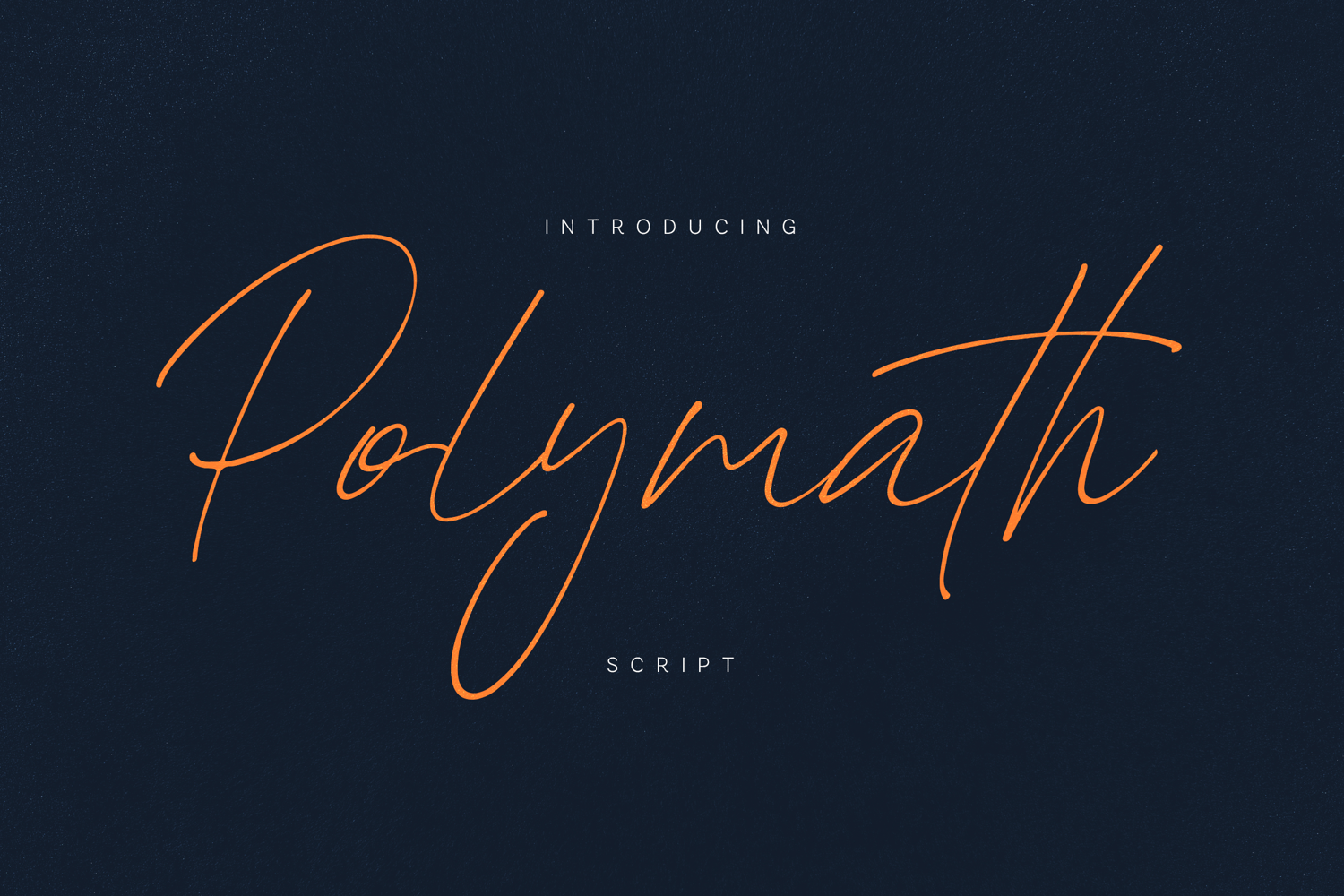
Polymath Signature Script Font
Polymath is a modern signature script font designed to capture the beauty of authentic handwriting with a refined, effortless flow. Created with natural pen movements and elegant line variation, this handwritten typeface delivers a sophisticated, stylish, and contemporary aesthetic perfect for premium branding and creative design projects.
Featuring graceful letterforms, long flowing strokes, and realistic handwritten details, Polymath brings warmth, personality, and elegance to every composition. Its natural rhythm creates typography that feels genuine and expressive while remaining highly versatile across a wide range of applications.
Whether you're creating luxury logos, wedding invitations, social media graphics, beauty branding, photography watermarks, product packaging, business cards, magazine layouts, book covers, or boutique branding, Polymath adds a polished handwritten touch that stands out beautifully.
The font includes multilingual support, carefully crafted uppercase and lowercase characters, numerals, punctuation, and stylistic details that help create natural-looking handwritten typography. Its clean yet expressive appearance makes it suitable for both modern minimalist designs and elegant premium branding projects.
- Handwritten Signature Script
- Elegant Modern Letterforms
- Uppercase & Lowercase Characters
- Numbers & Punctuation
- Natural Handwritten Flow
- Luxury Branding Style
- Wedding & Invitation Ready
- Logo & Packaging Friendly